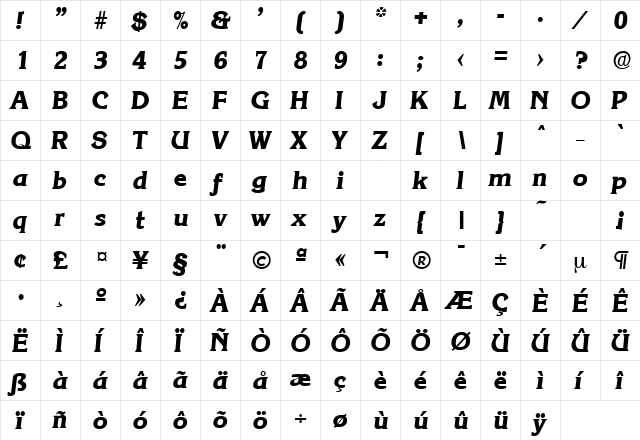
Design Context for Korinth-Serial-ExtraBold Typeface
Korinth-Serial-ExtraBold takes a measured approach to typography — its balanced proportions and neutral character make it a reliable workhorse for both digital and print work. The dynamic lean of this cut emphasises speed and emphasis in any layout. Its bold stroke weight gives it real presence on the page.
Pro Tip: Try Korinth-Serial-ExtraBold for annotation and caption copy alongside an upright companion — the contrast in angle creates a dynamic but ordered typographic system.